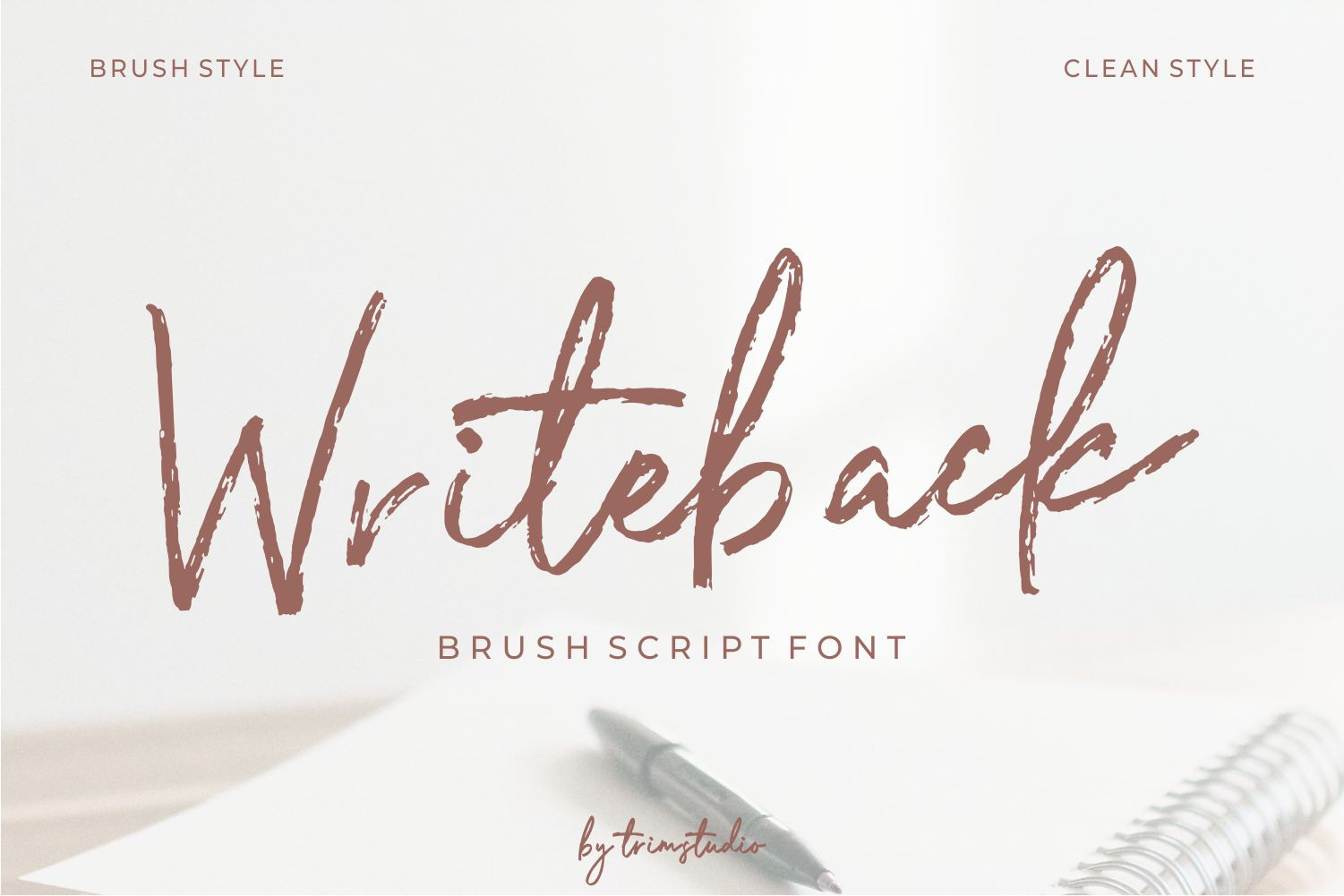
Writeback 2 Style Brush Font
Writeback Bring a touch of unique character to your designs with this simple style script brush font. The font features a mix of clean and simple brush strokes, with a touch of texture added to enhance its natural look. The casual script style and mixed textures make this font versatile, allowing it to be used for a wide range of projects. Give your designs a touch of creativity and personality with this simple style script brush font. Writeback also have 2 different weight, so you can easily combine and adjust the design theme with it Its perfect for casual and fun designs, this font is great for adding a personal touch to t-shirt designs, logos, posters, and more.